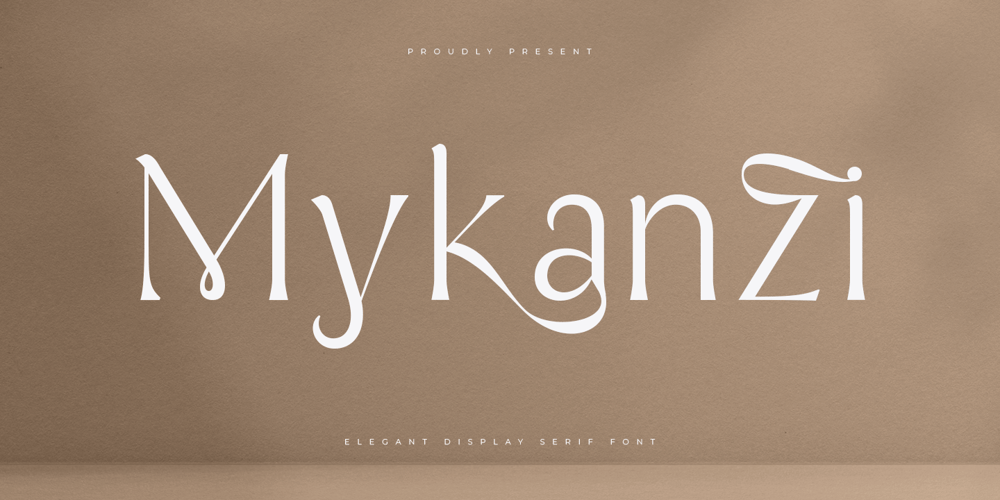
Mykanzi Font Family was designed by Achmad Aprilia Pratama and published by Aiquitype. Mykanzi contains 1 styles and family package options. IntroducingMykanzi – Elegant Display Serif Font embodies sophistication and grace, tailored for versatile applications such as branding, logo design, film covers, headline titles, and various other design endeavors. Crafted with fluid, elegant curves, this font exudes a sense of refinement and flow, adding a touch of timeless charm to any project it graces.Will you get : Uppercase, Lowercase, Numerals and Punctuations 46 Elegant Ligatures Included Installed on Mac & Windows4 Private Use Area Multilingual Support The font preview above can inspire your design ideas Very easy to access OpenType Features in various software such as : Adobe InDesign, Adobe Illustrator, Adobe Photoshop, Microsoft Word, and several other graphic design applications provide easy access to OpenType features. Unveil Timeless Elegance; Mykanzi – Where Sophistication Meets Serif.Thank you.